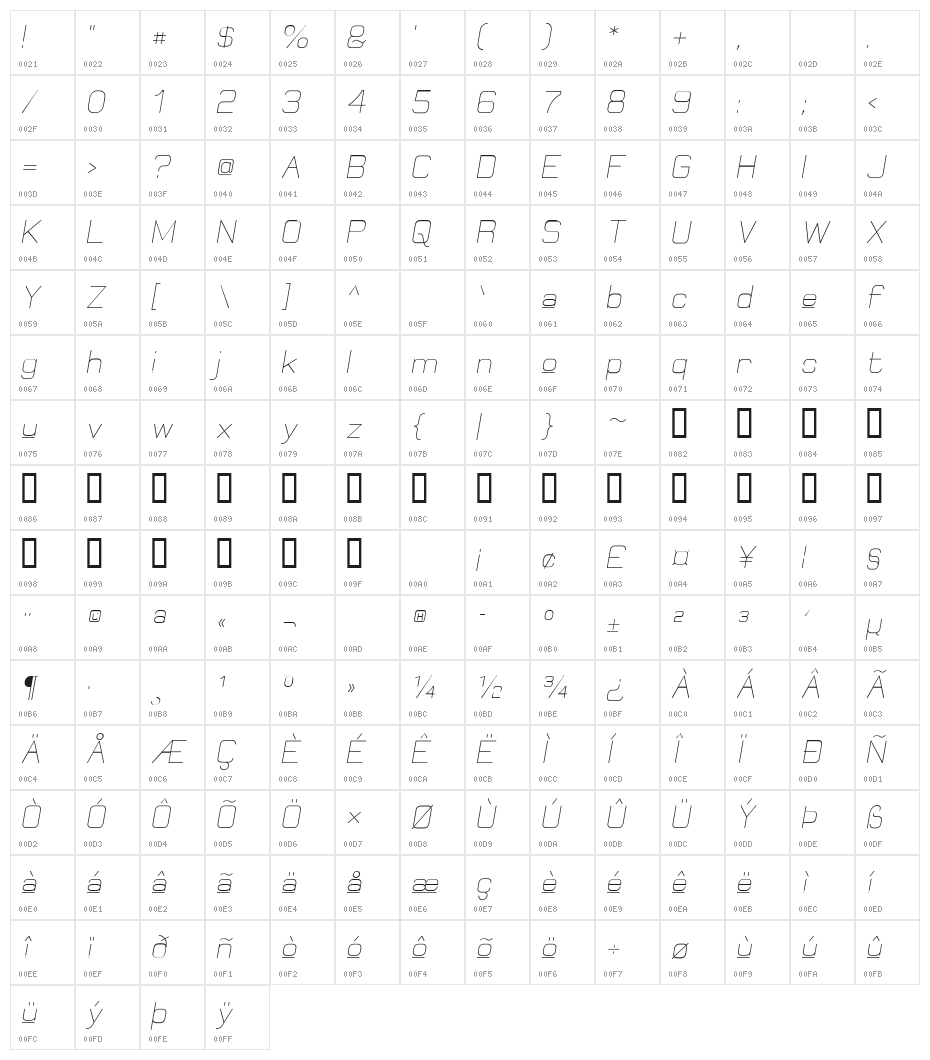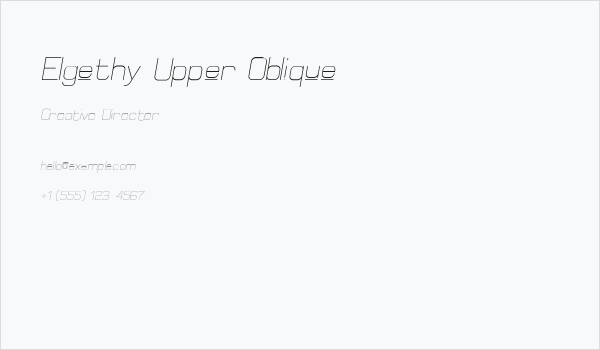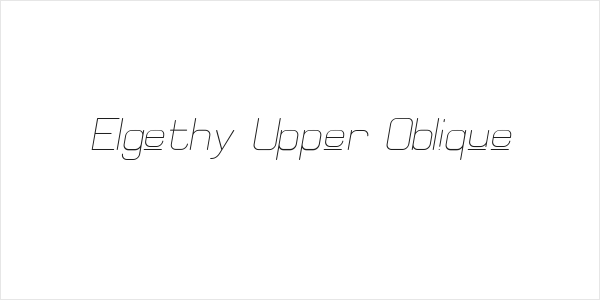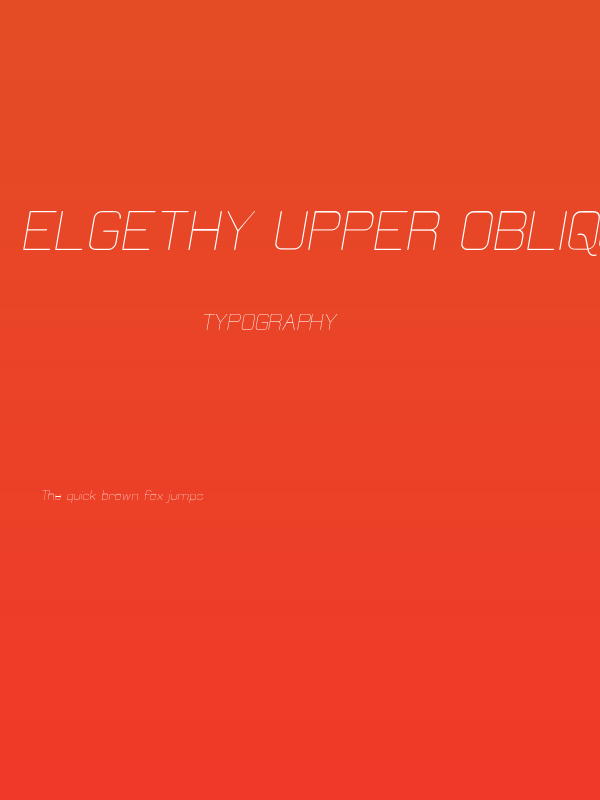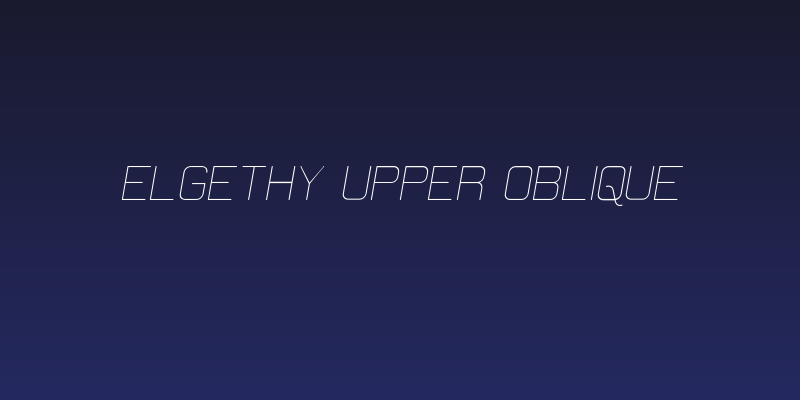
Elgethy Upper Oblique Font
Elgethy Upper Oblique Description
This font features a sleek, modern design with an oblique orientation that gives it a dynamic and forward-leaning appearance. The characters are constructed with clean, thin lines that maintain a consistent stroke width, contributing to a minimalist aesthetic. The uppercase and lowercase letters are well-proportioned, with a slight slant that enhances the sense of movement. The numerals and special characters are designed to match the overall style, ensuring uniformity across all elements. This font's geometric structure and open forms make it highly legible, even at smaller sizes.
| Use Case | Headlines, Logos, Digital interfaces |
| Proposed Projects | Ideal for tech branding, modern advertising, product packaging, and digital interfaces. |